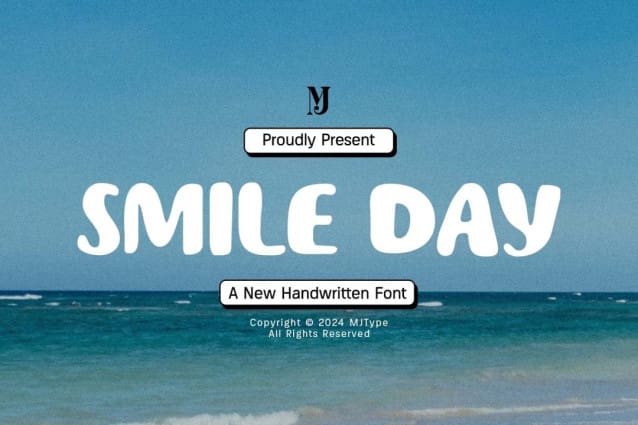
Smile Day Font
Smile Day Font is a chunky, comic, and cartoon display font. With its neat and joyful personality, this font will enhance any project you wish to create!